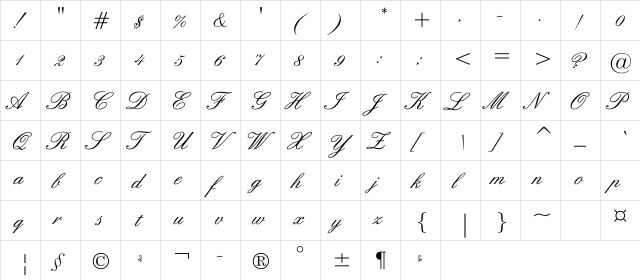
EnglishScriptC Regular
Design Context for EnglishScriptC Typeface
EnglishScriptC brings a calligraphic fluidity to the page — its connecting strokes and expressive curves give it an unmistakably human quality.
Font Pairing: Combine EnglishScriptC with a simple geometric sans for maximum contrast — the tension between flowing curves and clean structure is a classic typographic pairing.
Pro Tip: Use EnglishScriptC for short runs of text — names, titles, or taglines. Extended body copy in script faces tires the eye quickly.